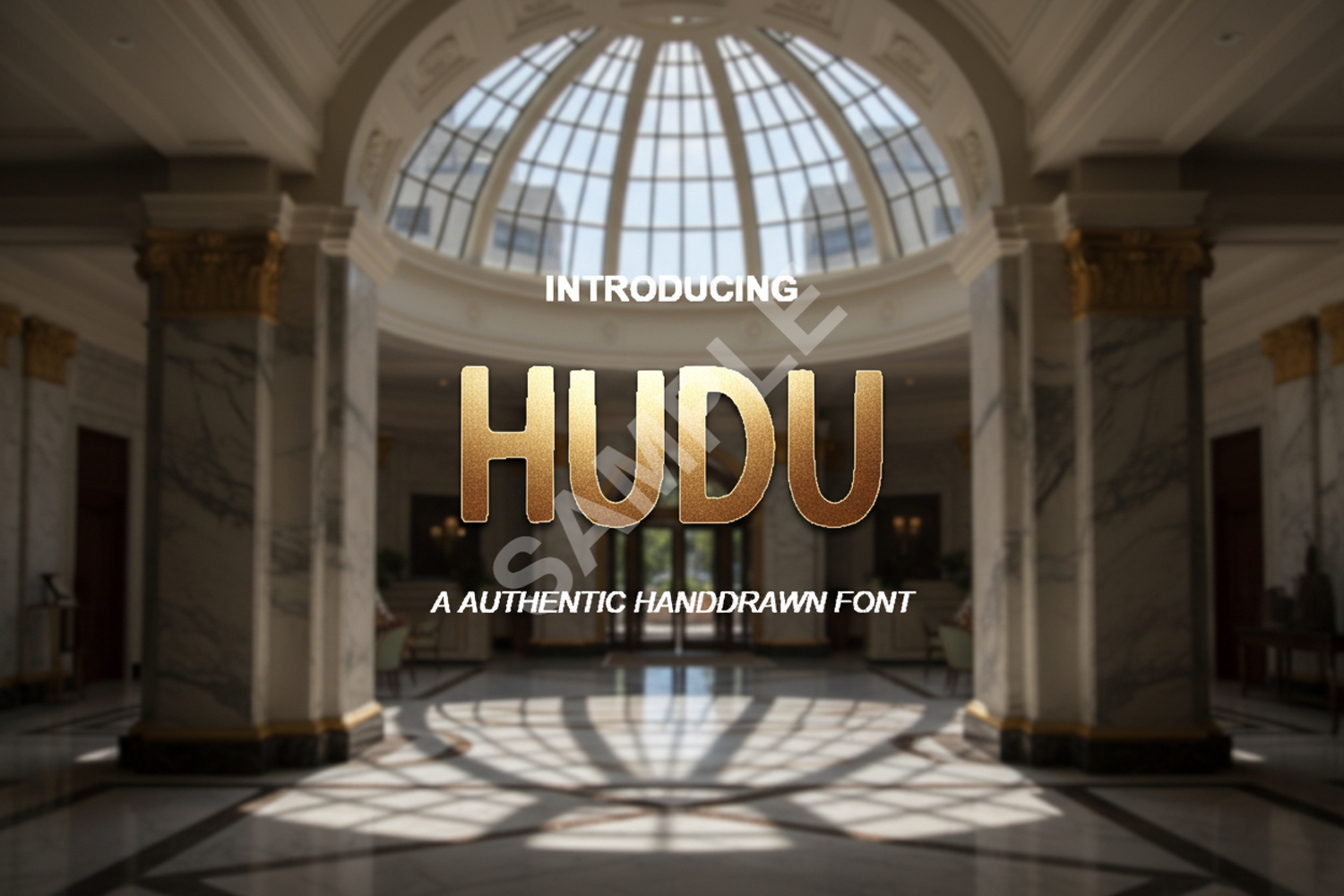
Hudu - Elegant Modern Display Serif
Hudu
Elevate your creative projects with Hudu, a premium display serif font designed for sophistication and impact. With its clean lines and unique character shapes, Hudu strikes the perfect balance between modern minimalism and timeless elegance. Whether you are crafting a high-end brand identity or designing a sleek editorial layout, this font provides the versatility and professional polish your work deserves.
- High-end Branding and Logo Design
- Luxury Packaging and Labeling
- Sophisticated Wedding Stationery and Invitations
- Editorial Layouts and Magazine Headings
- Stylish Social Media Graphics and Quotes
- Modern Web Design and Professional Portfolios